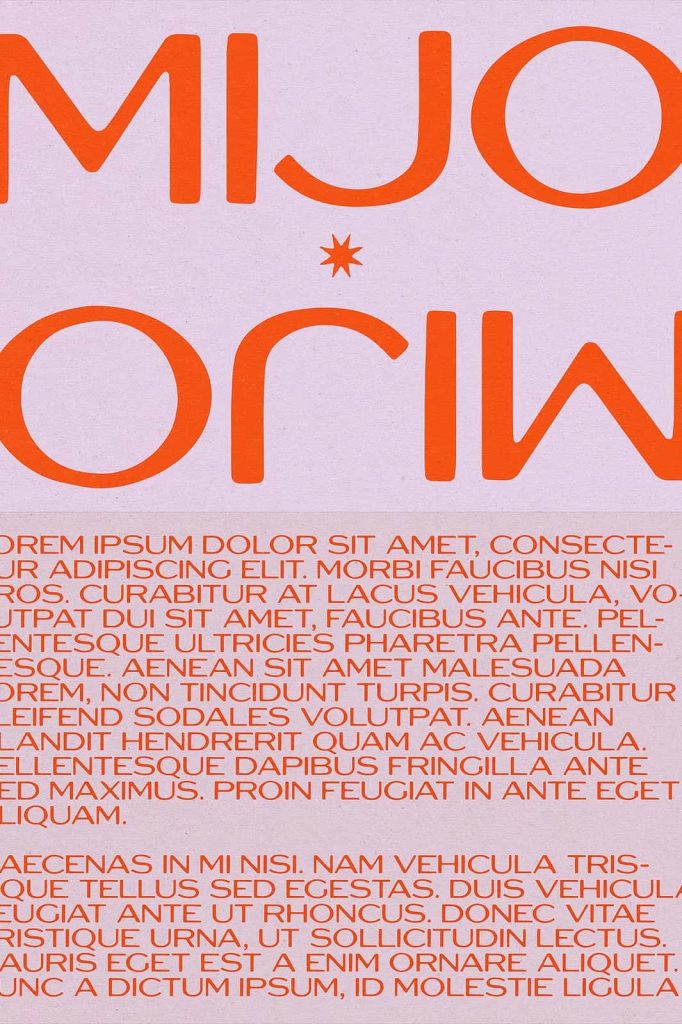
Mijo: An Elegant Lightweight Font with Soft Edges and Balanced Form
Mijo is an elegant lightweight font designed to bring subtle sophistication and modern clarity into your typography. Built with soft edges and a gentle bleed effect, this typeface redefines the traditional sharpness often found in similar styles. Instead of rigid angles, Mijo introduces smooth transitions and delicate curves that create a more natural and approachable appearance.
This font focuses on balance and refinement. Its square proportions provide structure, while the slight contrast in stroke weight adds depth and visual interest. As a result, Mijo offers a harmonious combination of precision and softness, making it suitable for a wide range of creative applications.
Soft Edges with a Unique Bleed Effect
One of Mijo’s most distinctive qualities lies in its softened edges. Rather than relying on sharp, geometric corners, the font features gently rounded forms that create a smoother visual flow. This design choice makes your text feel more organic and less mechanical, which enhances readability and aesthetic appeal.
The subtle bleed effect adds another layer of character. It mimics the slight ink spread you might see in print, giving the font a tactile and realistic quality. This detail introduces warmth into the design while maintaining a clean and professional look.
Key Design Features
- Lightweight structure for elegant presentation
- Soft edges that reduce harsh visual contrast
- Subtle bleed effect for added texture
- Clean and modern overall appearance
Balanced Square Proportions for Versatility
Mijo uses square proportions to create a stable and balanced foundation. This structure ensures consistency across all characters, helping your typography feel organized and visually aligned. The even spacing and proportional design allow the font to perform well in both large and small sizes.
The slight contrast in stroke weight enhances this balance by adding just enough variation to keep the text engaging. It avoids extremes, ensuring that your designs remain clean and readable while still offering subtle visual dynamics.
Advantages of Balanced Proportions
- Improved readability across different formats
- Consistent visual rhythm in text layouts
- Adaptability for both print and digital media
- Professional and polished appearance
Perfect for Modern and Minimalist Design
Mijo fits naturally into modern and minimalist design styles. Its lightweight structure allows your content to breathe, making it ideal for layouts that prioritize simplicity and clarity. Whether you are designing a website, editorial spread, or branding material, this font supports a clean and refined aesthetic.
The soft edges also help reduce visual tension, making it easier to create calm and inviting compositions. This makes Mijo especially effective for projects that require a subtle and elegant tone.
Recommended Use Cases
- Website typography and user interface design
- Editorial layouts and magazine design
- Minimalist branding and logos
- Presentation and portfolio design
Flexible Across a Wide Range of Projects
Mijo’s versatility makes it a valuable tool for designers working across multiple disciplines. Its clean structure allows it to function well as both a headline and body font. You can use it to create strong titles or to support longer text without sacrificing readability.
The font adapts easily to different moods and styles. Pair it with bold display fonts for contrast, or use it on its own for a cohesive and understated design. Its flexibility ensures that it remains effective in a variety of creative contexts.
Creative Applications
- Brand identity systems
- Print materials such as brochures and posters
- Digital products and mobile interfaces
Refined Typography with a Human Touch
Mijo stands out by combining precision with softness. Its design avoids overly rigid geometry while maintaining a structured and modern feel. This balance gives your typography a human touch, making it more engaging and approachable.
The font’s subtle details, from its softened corners to its gentle bleed effect, create a unique visual identity. These elements work together to produce typography that feels thoughtful, refined, and carefully crafted.
Why Choose Mijo
- Elegant and lightweight for modern design
- Soft details that enhance readability and style
- Versatile across multiple design applications
- Distinctive yet subtle visual character
Create Clean and Elegant Designs with Mijo
Mijo offers a fresh perspective on modern typography. It combines clean structure with gentle detailing to create a font that feels both contemporary and timeless. Whether you are designing for digital or print, Mijo helps you achieve a polished and professional result.
Choose Mijo when you want your designs to feel balanced, elegant, and approachable. Its refined features and versatile nature make it an excellent addition to any designer’s toolkit.